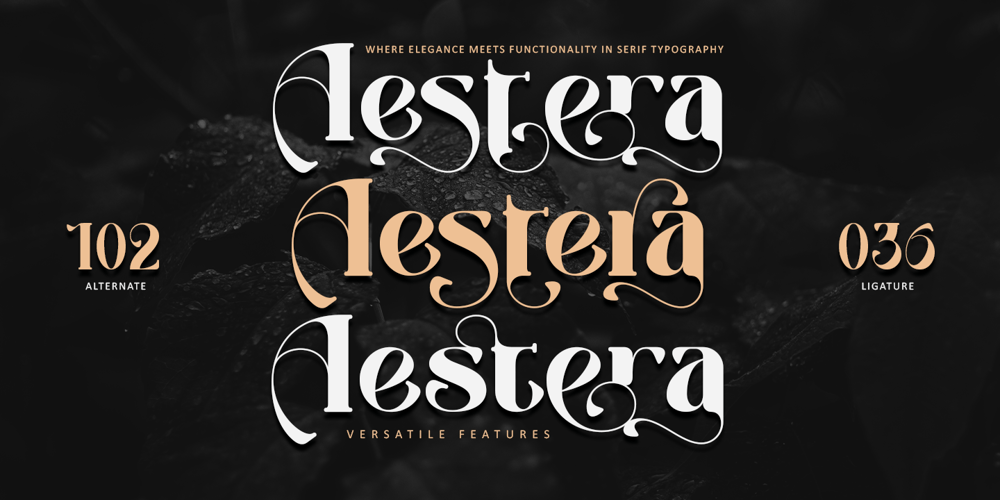
Aestera Font Family was designed by Thomas Aradea and published by Letterara. Aestera contains 2 styles and family package options. Introducing “Aestera,” a versatile and sophisticated serif font designed to elevate your creative projects. With its elegant letterforms and extensive features, Aestera offers a wide range of styling options, perfect for editorial layouts, branding materials, and more. Whether you’re aiming for a classic or modern look, Aestera’s PUA encoding ensures easy access to unique glyphs and swashes, allowing you to create captivating designs effortlessly. Make a statement and captivate your audience with the timeless beauty and versatility of Aestera.